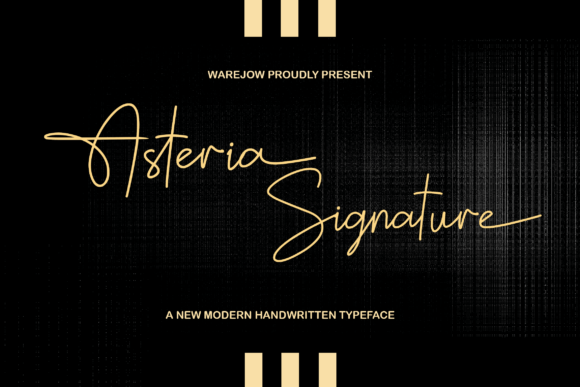
Unleash the Enchantment of Asteria Signature Font - Where Elegance Meets Authenticity
Welcome to the world of Asteria Signature Font, where creativity dances with elegance and authenticity intertwines with passion. This captivating script font, meticulously crafted by WarejoW, is designed to elevate your creations to new heights, leaving a lasting impression on every heart it touches. Inspired by the allure of handwritten strokes, Asteria Signature Font exudes a romantic charm that's simply irresistible.
With its graceful curves and enchanting flow, Asteria Signature Font effortlessly captures the essence of timeless beauty. Each letter, delicately shaped and adorned with intricate details, invites you to embark on a journey of artistic expression. Whether you're a seasoned designer or just starting your creative journey, Asteria Signature Font will become your trusted companion, guiding you towards masterpieces that resonate with soul and style.
As you delve into the depths of Asteria Signature Font's character set, you'll discover a treasure trove of possibilities. From its PUA encoding, which grants you effortless access to a symphony of glyphs and ligatures, to its multilingual support that embraces a global audience, this font is a symphony of versatility.
Imagine your designs adorned with the allure of Asteria Signature Font. Let your words dance across the page, imbued with an ethereal grace that captivates and enchants. Create logos that exude sophistication, branding that leaves a lasting impression, and social media posts that sparkle with individuality. Asteria Signature Font is your gateway to a world where creativity knows no bounds.
Step into the realm of Asteria Signature Font and witness the transformation of your designs. Its elegant strokes will breathe life into your projects, evoking emotions and igniting imaginations. From the delicate swirls of wedding invitations to the bold statements of marketing campaigns, Asteria Signature Font is your secret weapon to leave an unforgettable mark.